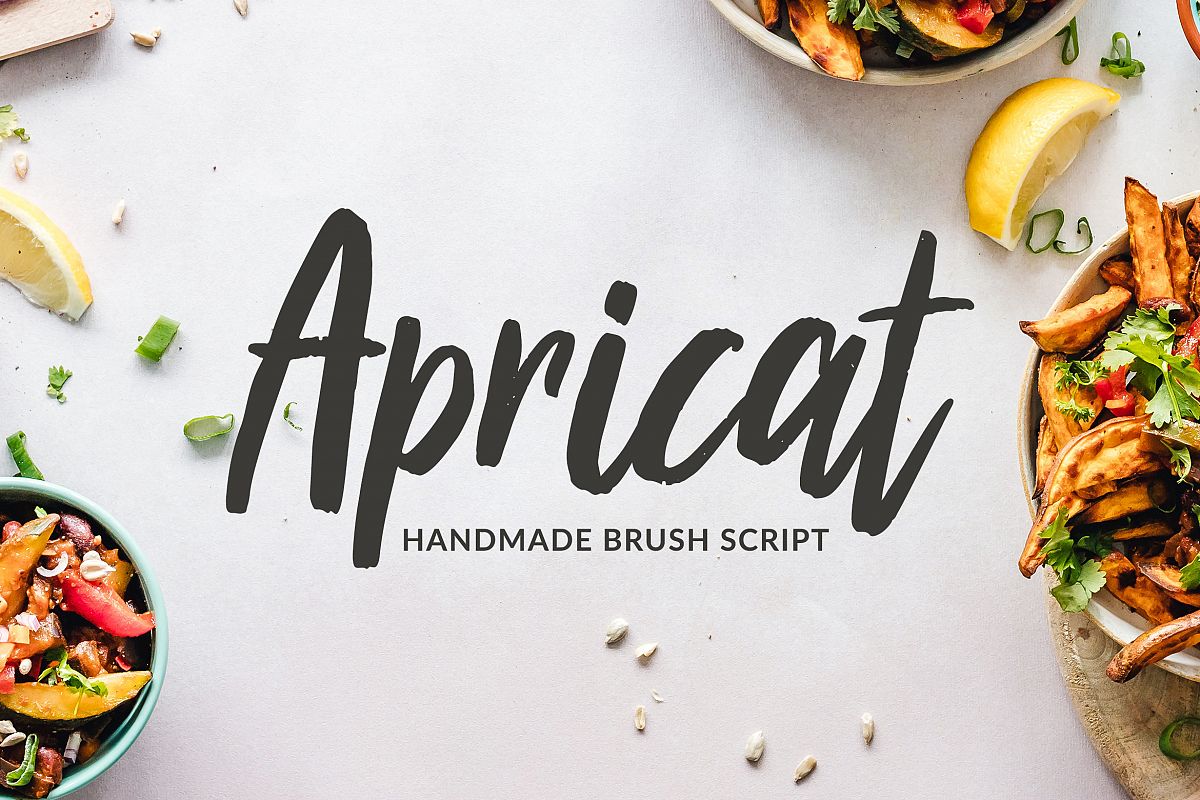
Apricat Brush Script
Introducing Apricat Script with beautiful natural dry brush strokes, and the stroke of hand quickly.
Apricat Script is perfect for signature, branding, wedding, fashion, photography title, poster, social media, ad banner, book cover, packaging, handwritten quotes, greeting cards, and advertising.